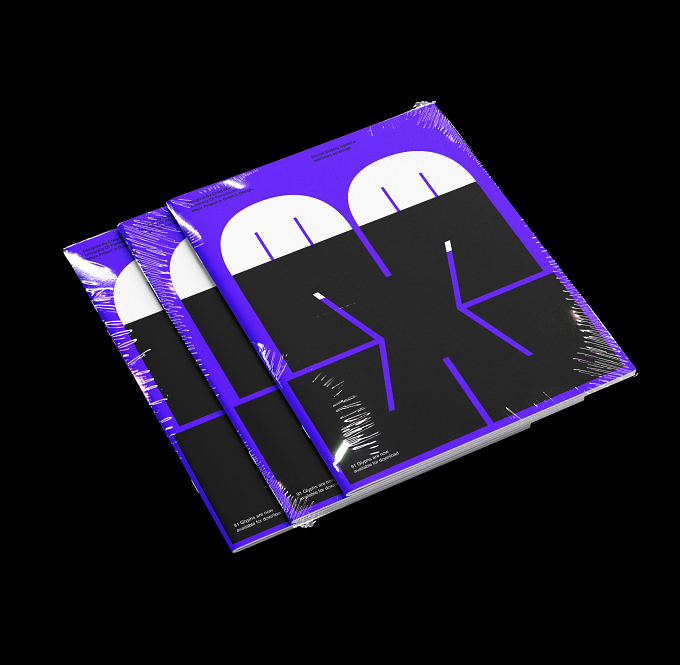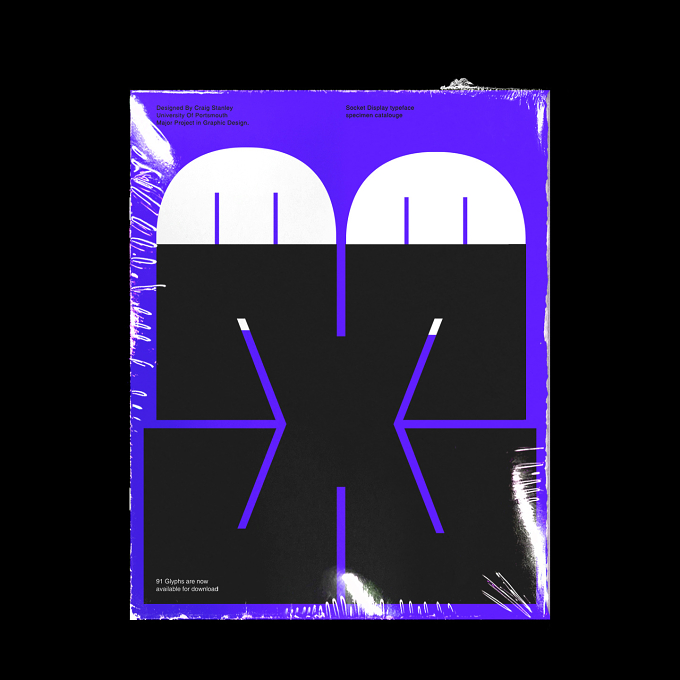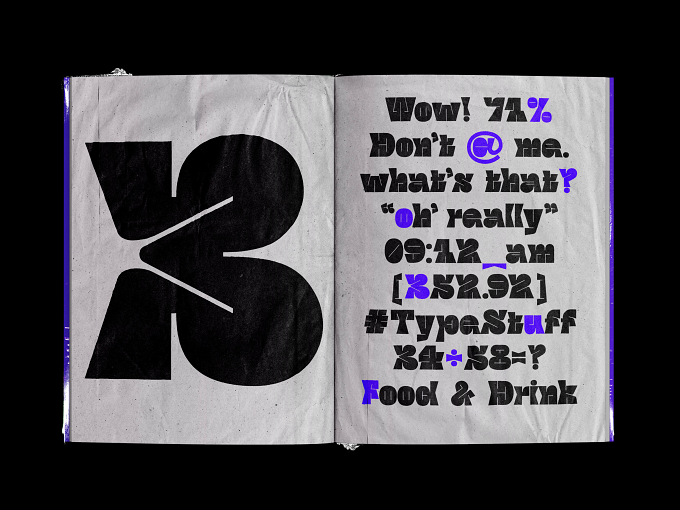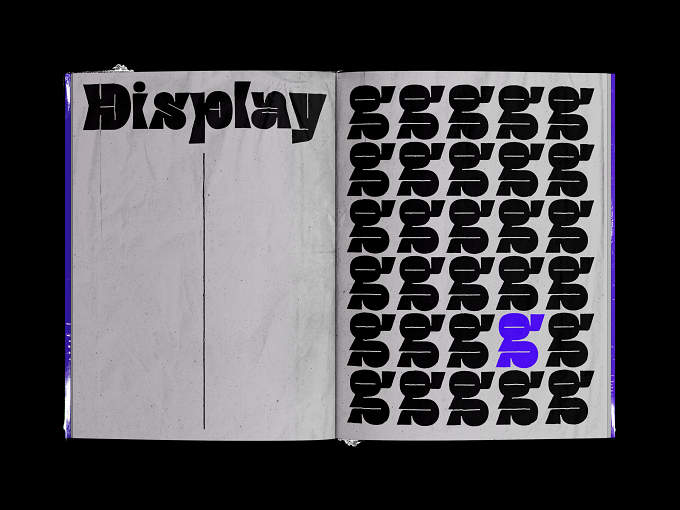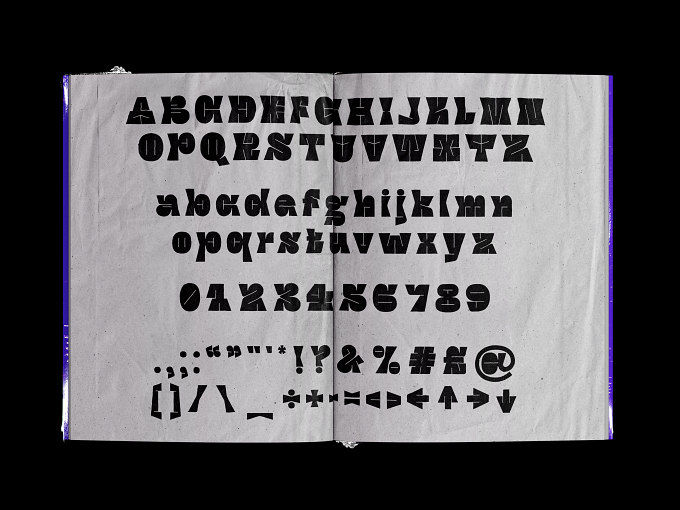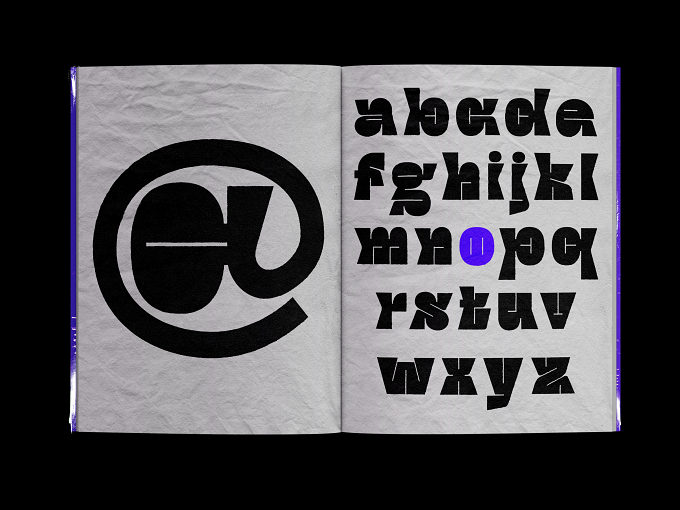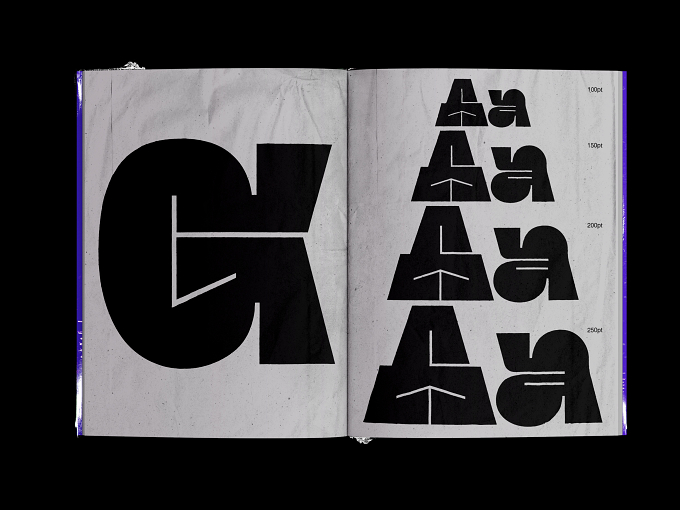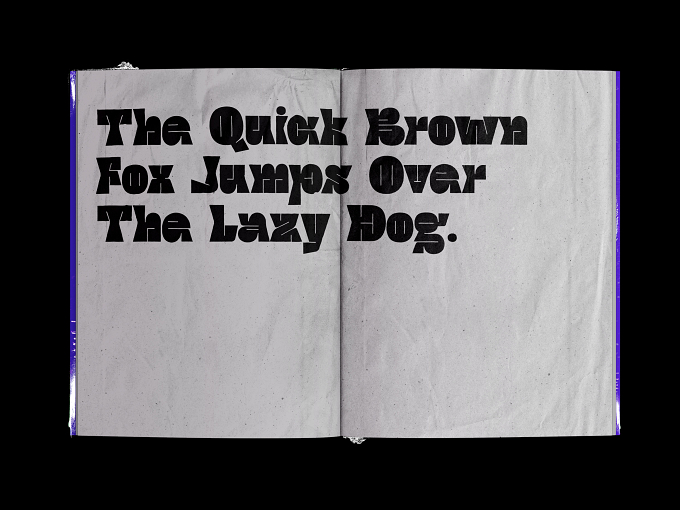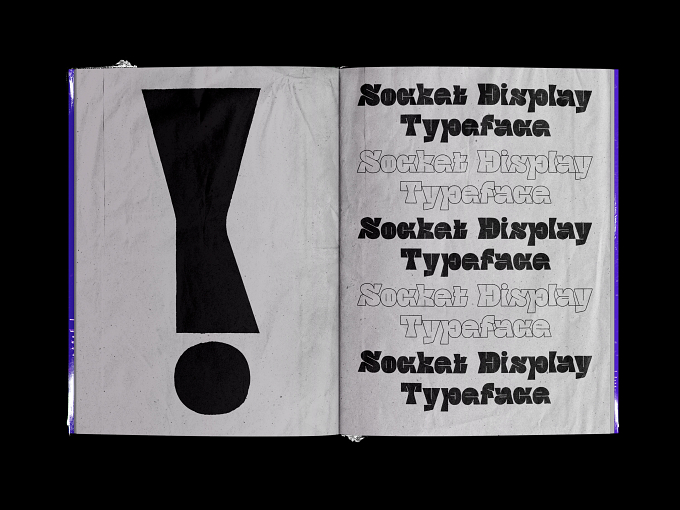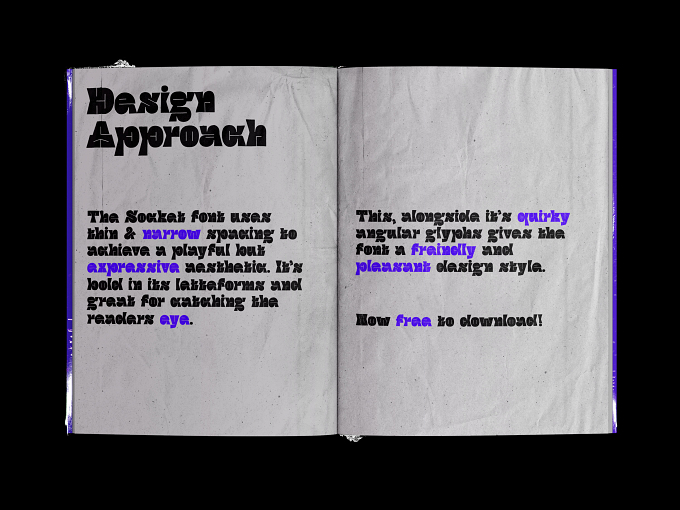
As part of my 36 days of type challenge i decided to develop one of my favorite ones into a whole display typeface. The overall design approach was to develop glyphs that could be applied to every upper-case, lower-case, numerals and symbols. The font is meant to be used at large display sizes.